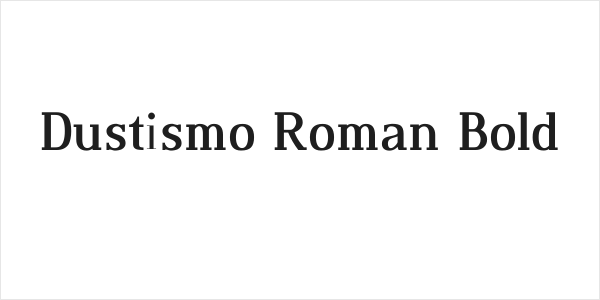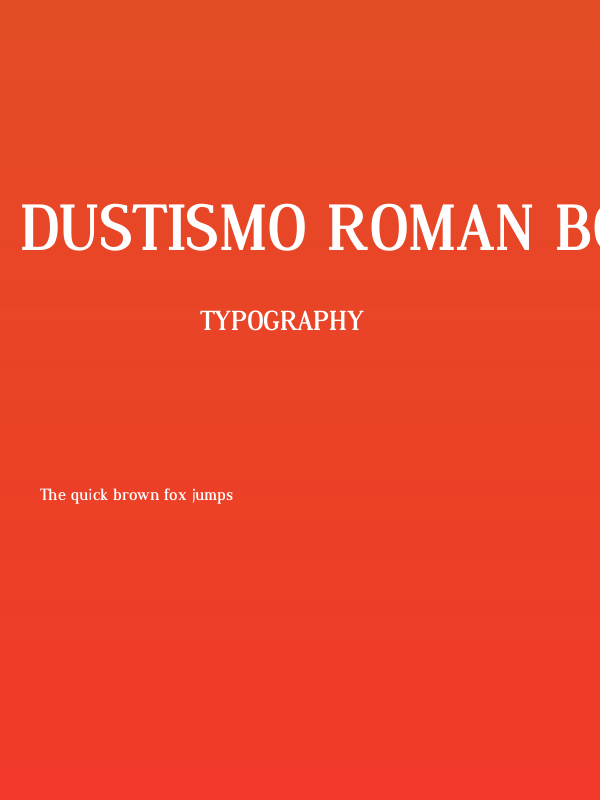
Dustismo Roman Bold Font
Dustismo Roman Bold Description
This font features a classic serif style with bold, prominent strokes that convey a sense of strength and reliability. The serifs are well-defined and add a touch of elegance to the overall appearance. The uppercase letters are tall and commanding, while the lowercase letters maintain a consistent height, ensuring readability. The numerals are clear and distinct, making them suitable for various applications. Special characters are included, maintaining the same bold and structured design. The font's balanced proportions and traditional aesthetic make it versatile for both formal and informal contexts.
| Proposed Projects | Ideal for book covers, editorial design, branding, and formal invitations. |